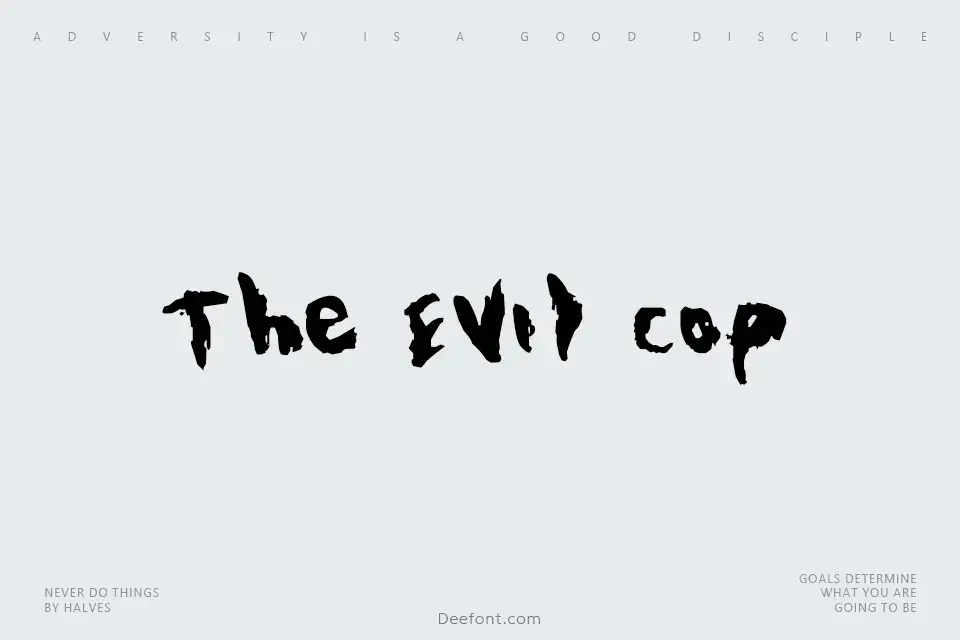
The Evil Cop Font
The Evil Cop Font is a rough trash script display font with jagged strokes, smeared ink textures and chaotic letterforms that instantly suggest horror, violence and rebellion. Perfect for Halloween posters, slasher movie titles, metal band logos, game covers and any design that needs a raw, menacing impact.